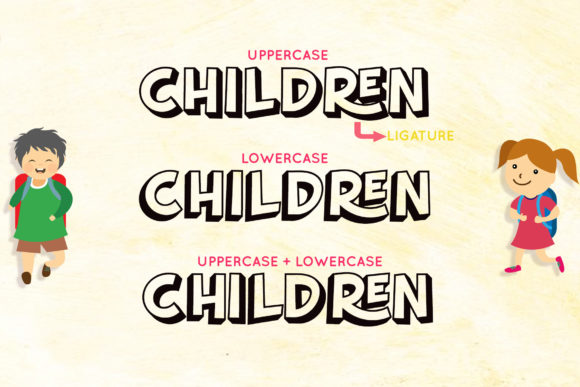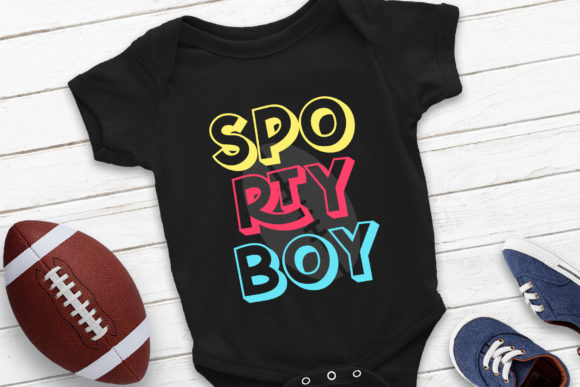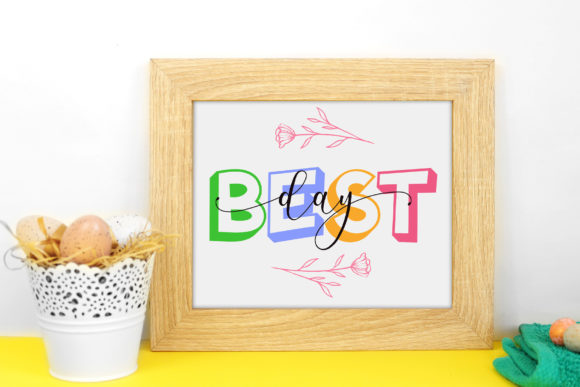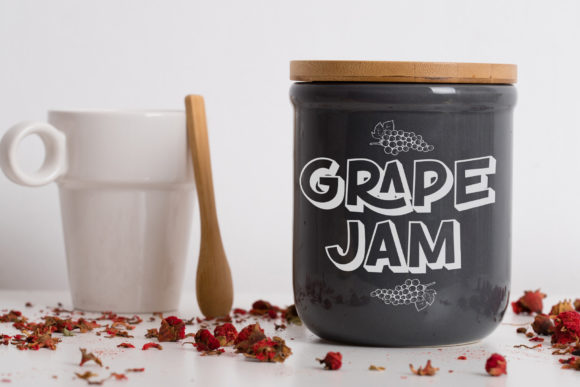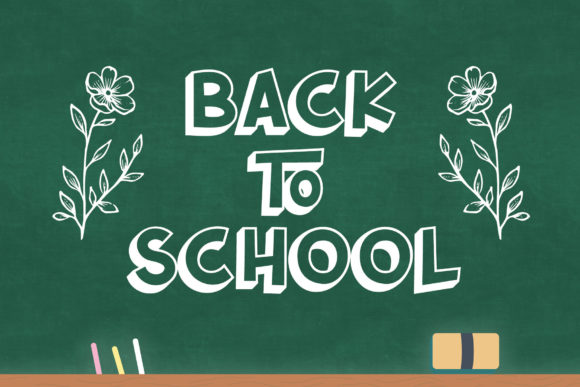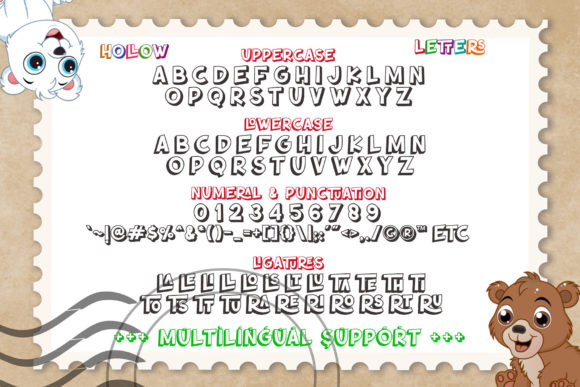
Introduction to Hollow Letters Font
Hollow Letters is a playful and fun outlined display font.
It is PUA encoded which means you can access all glyphs and swashes with ease This font is perfect for children themed designs, especially when combined with bright colors.
Key Features of Hollow Letters Font